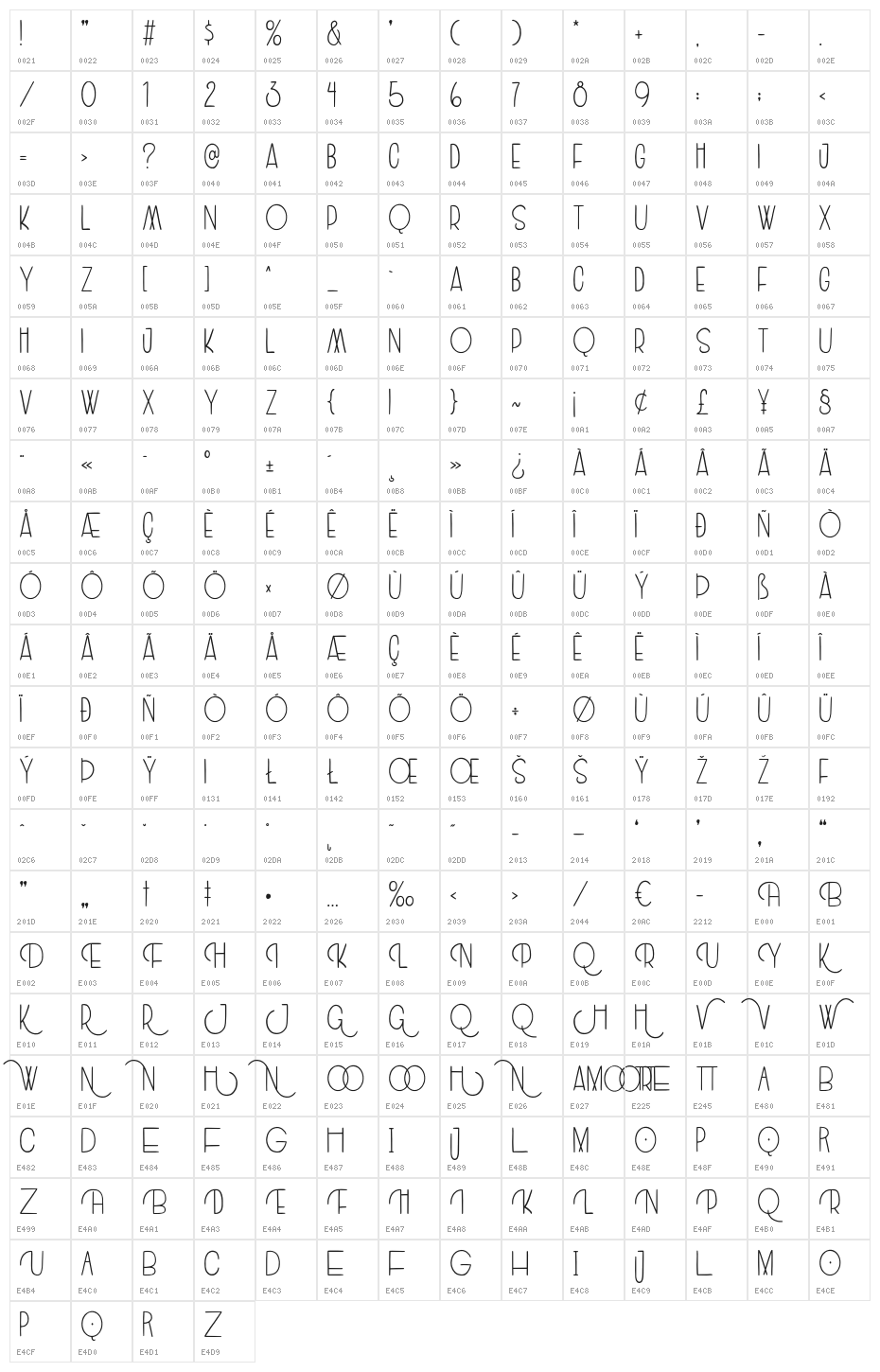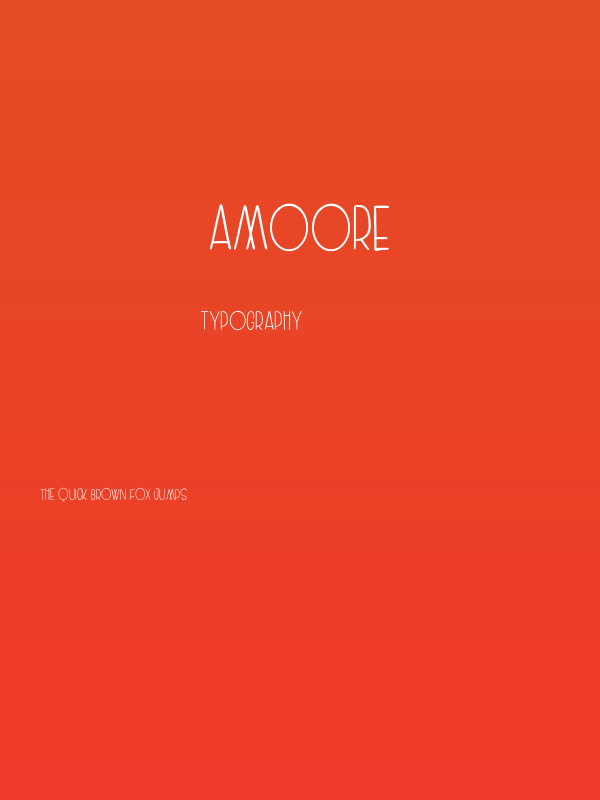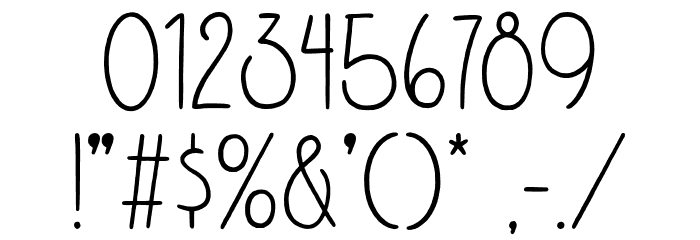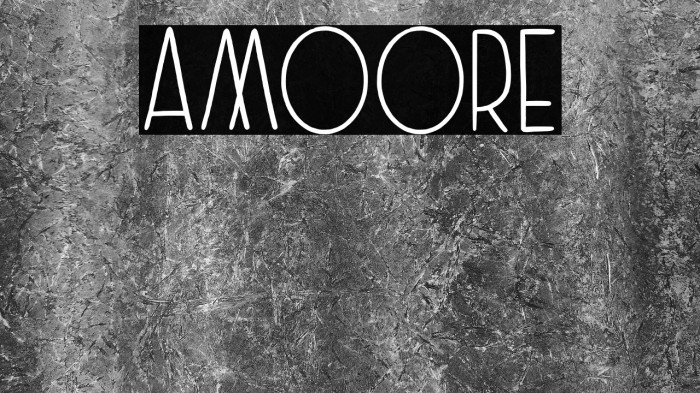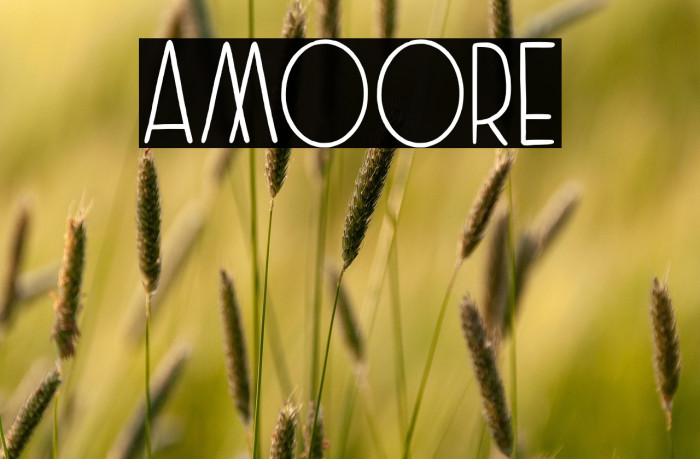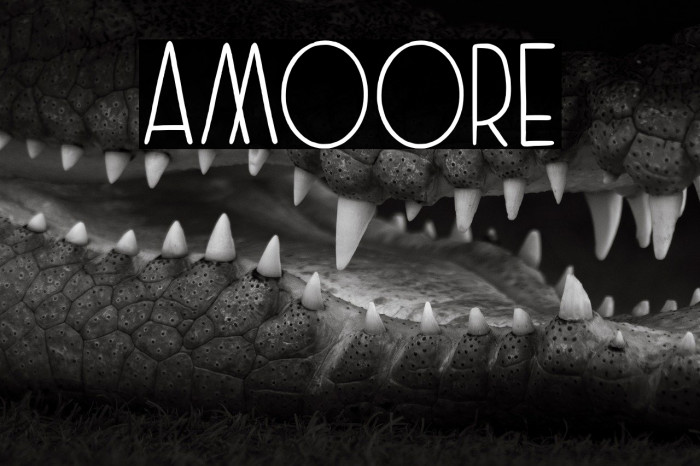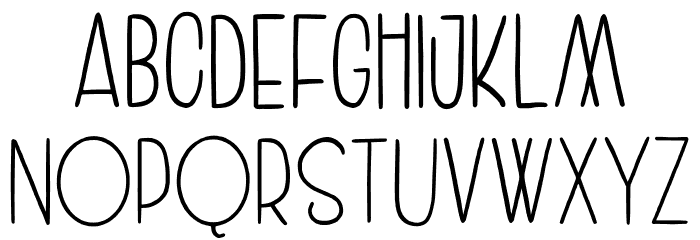
Amoore Font
Amoore Description
This font features a playful and whimsical design with tall, narrow characters that have a hand-drawn appearance. The strokes are consistent in width, giving it a uniform look, while the slight irregularities in the lines add a touch of charm and personality. The uppercase and lowercase letters maintain a cohesive style, with rounded edges and a slight tilt that suggests movement. The numerals and special characters are designed to match the overall aesthetic, making it suitable for creative and informal projects. Its unique style makes it stand out, while still being legible and versatile.
| Proposed Projects | Ideal for children's books, greeting cards, playful branding, and creative posters. |